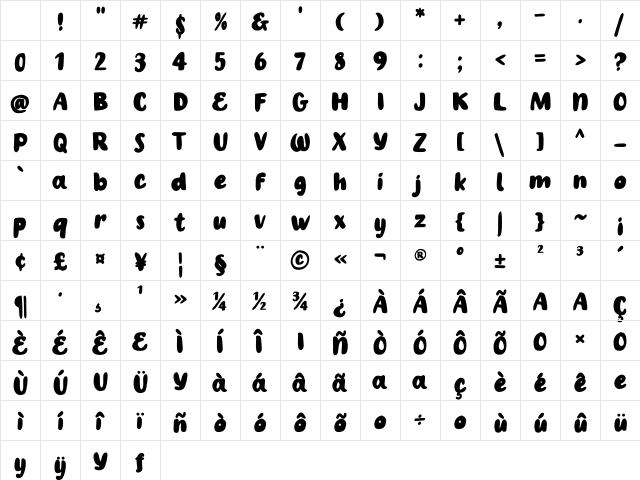
Handcrit flows with the natural rhythm of handwritten lettering, making it ideal for designs that call for warmth and personal expression.
Font Pairing: Combine Handcrit with a simple geometric sans for maximum contrast - the tension between flowing curves and clean structure is a classic typographic pairing.
Pro Tip: Use Handcrit for short runs of text - names, titles, or taglines. Extended body copy in script faces tires the eye quickly.